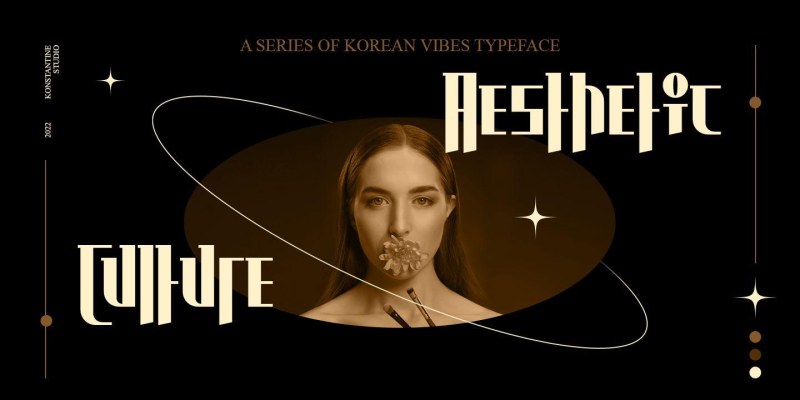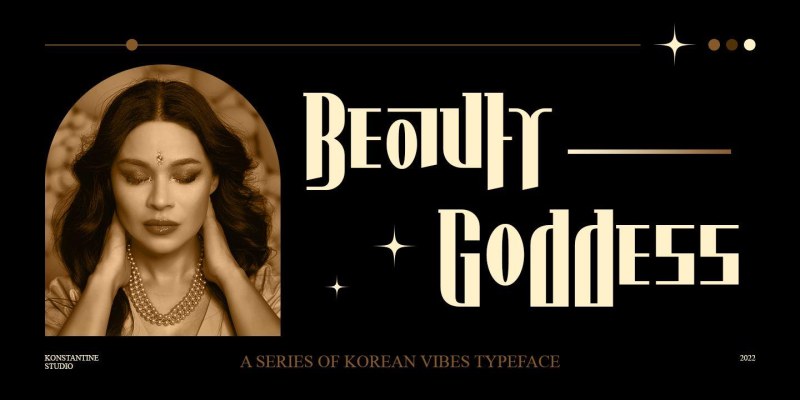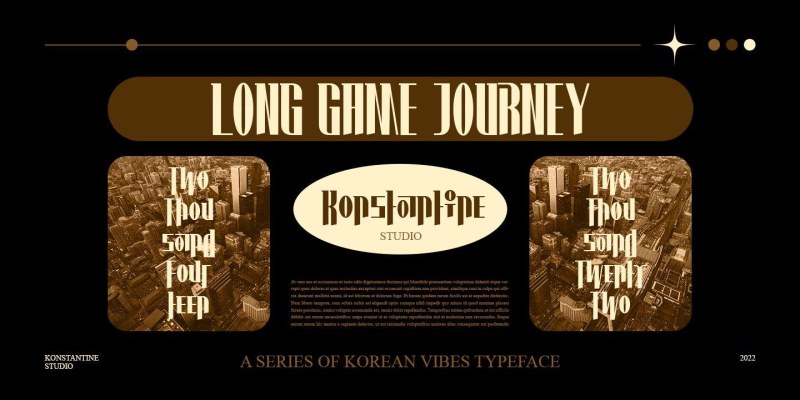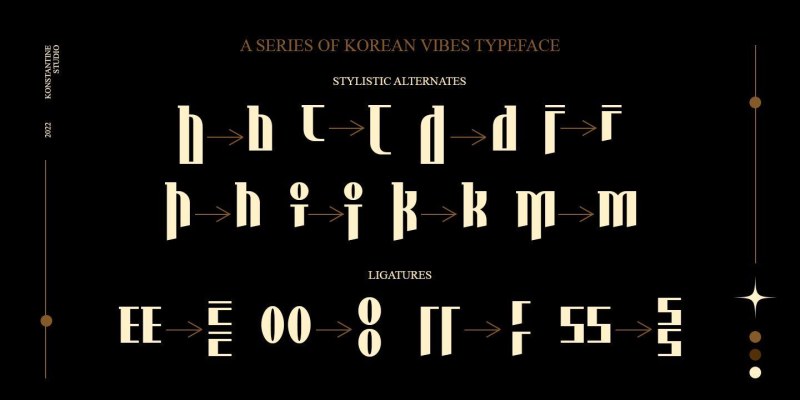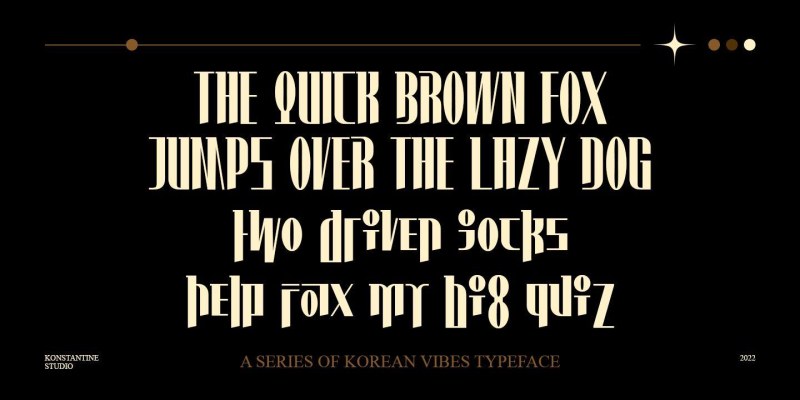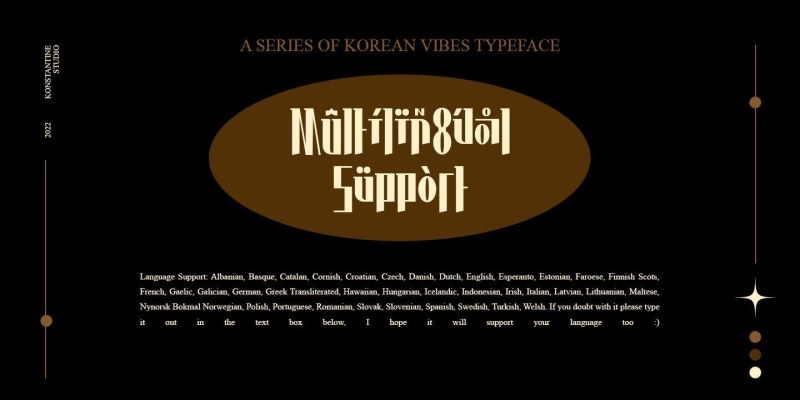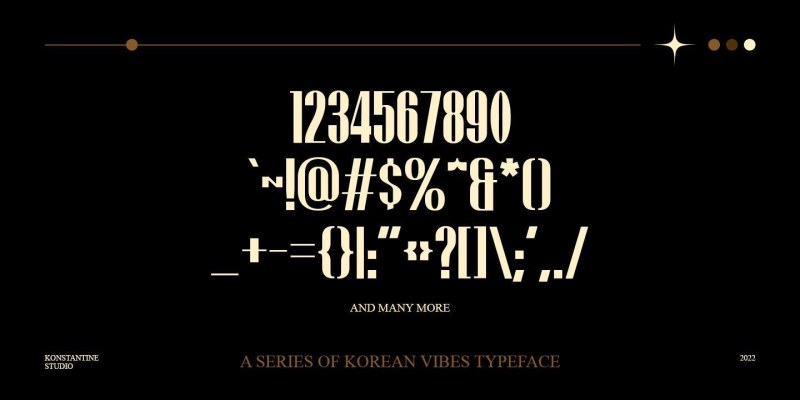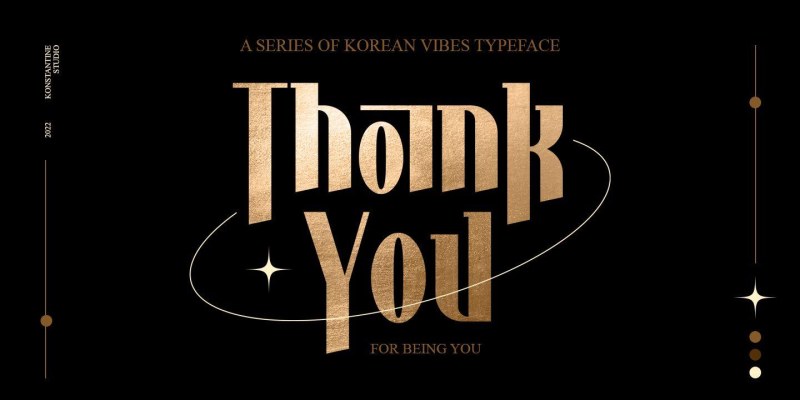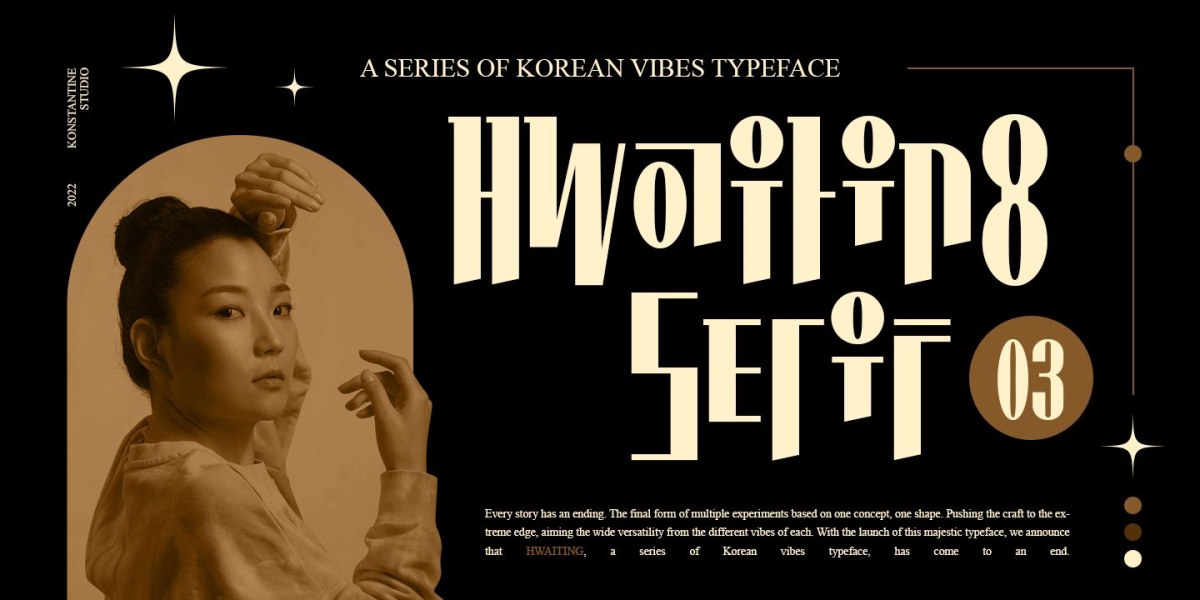
Hwaiting Serif Font
Inspired by the emerging Korean culture that grabbing the worldwide actuation in so many realms of the industry. To bridge the vibes and to make it easier to consume, we…
Inspired by the emerging Korean culture that grabbing the worldwide actuation in so many realms of the industry. To bridge the vibes and to make it easier to consume, we found the gap to fill with simple things in life that are useful for it, and yes, it’s a new day it’s a new font. So without any further ado, please welcome Hwaiting Serif. 3/3 series of Korean vibes typefaces. It’s a serif font with a thick and thin style of visuals, aiming the luxury and glamorous tone to catch up with high-fashion branding and today’s graphic design trends. Crafted with deep research about Korean traditional letters, shaped up with the approach of universal Latin letters.
Where Hwaiting Serif Font works best
Hwaiting Serif Font gives long-form text a classic, trustworthy rhythm — ideal for magazine spreads, annual reports and book interiors.
Pair Hwaiting Serif Font with generous letter-spacing for wordmarks in fashion, hospitality, wine and jewellery branding.
Use Hwaiting Serif Font for slide titles in Keynote, PowerPoint or Google Slides to add authority without looking dated.
What is Hwaiting Serif Font good for?
Hwaiting Serif Font is a Serif Fonts typeface tagged Branding, Classic, Serif, Serif Fonts. It works well for headlines, logos, posters, social media graphics and branding projects that need a distinctive serif fonts look.